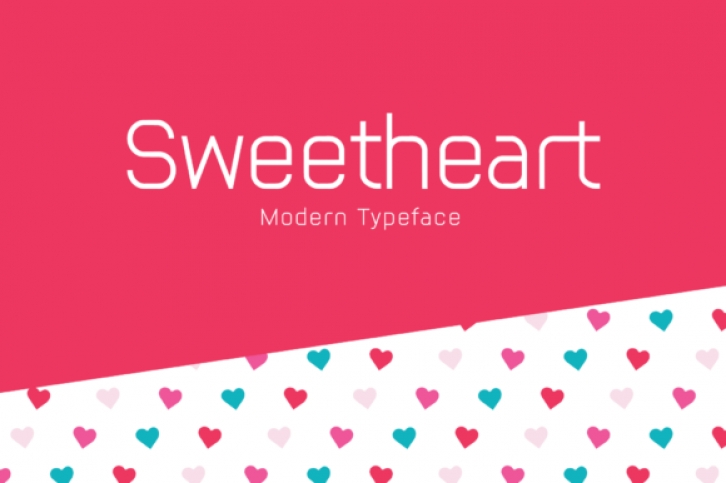
Sweetheart is a brand new modern font. Sweetheart is perfectly suited for stationery, logos, t-shirt, paper, print design, website header, photo frame, flyer, music cover, poster, image slider and much more.